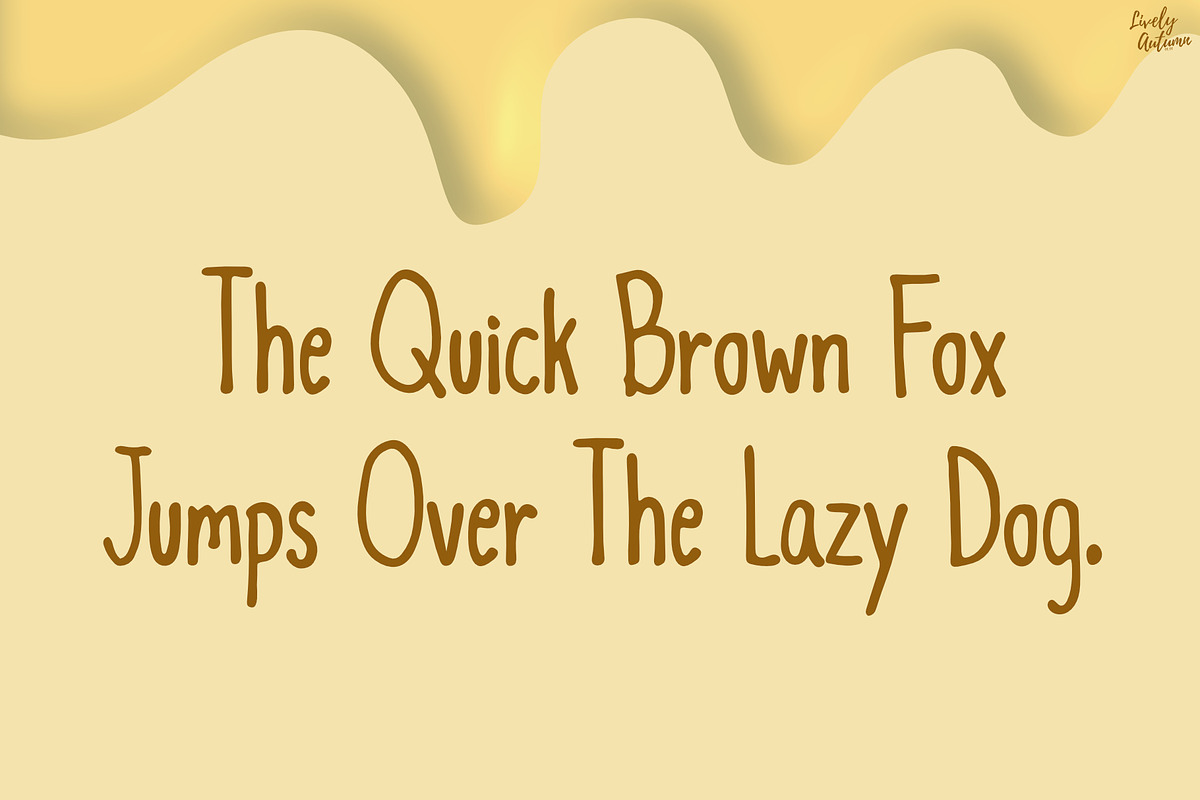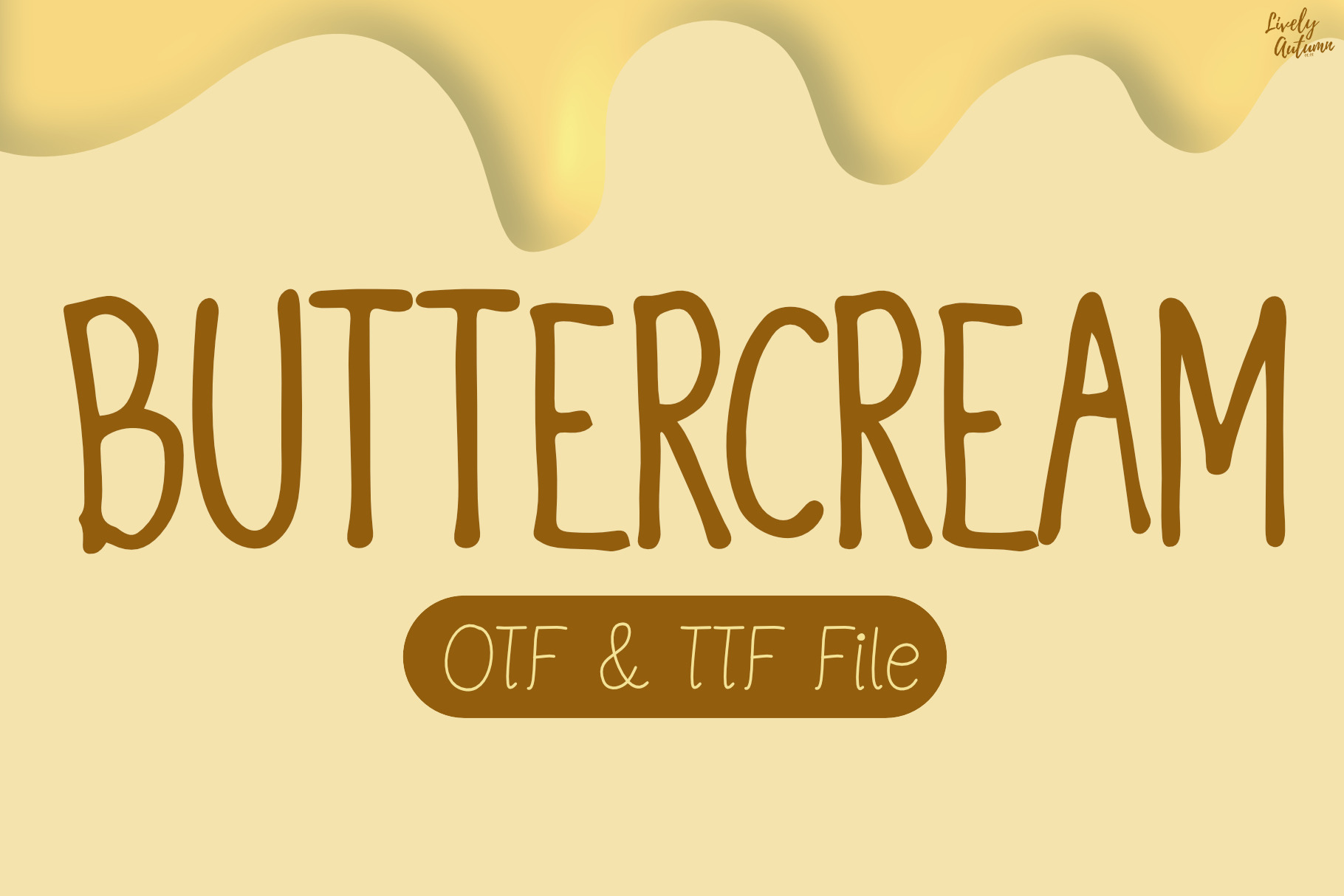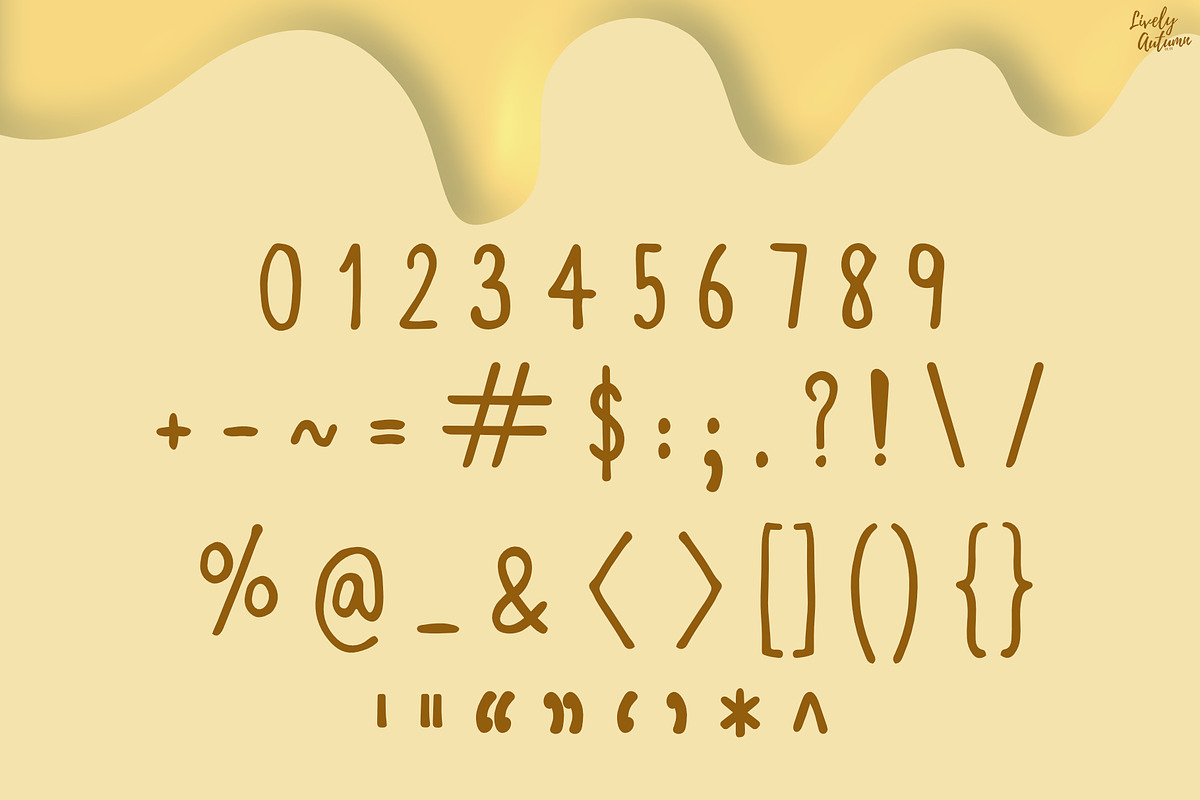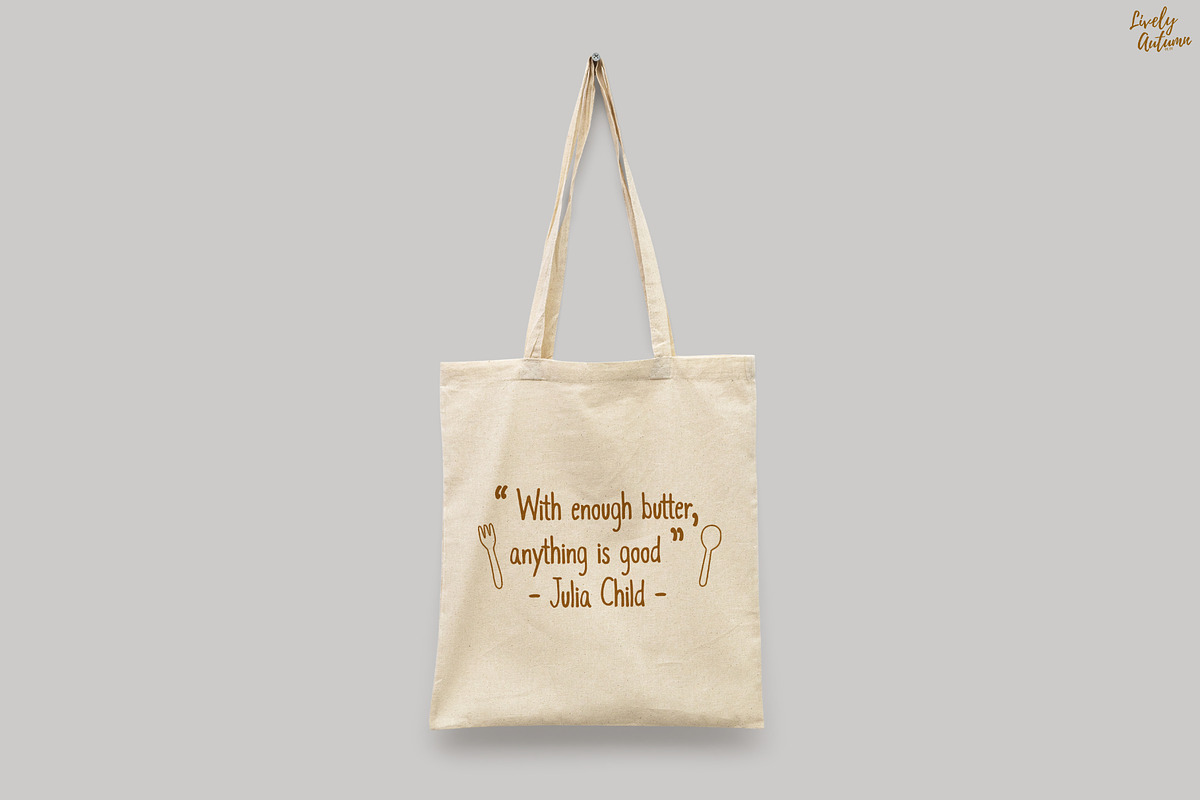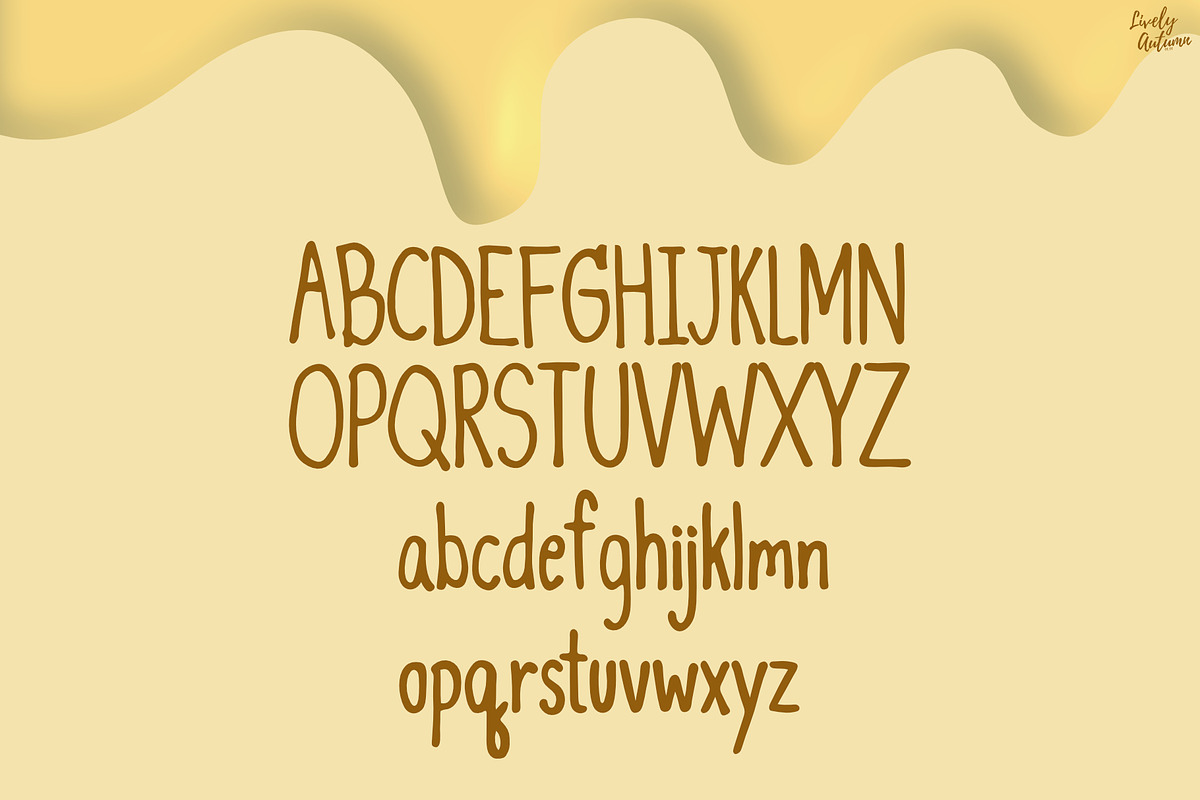
Buttercream | Handwritten Font
Buttercream Font is a marker brush handwritten font. Perfect for your personal projects and various projects. From invitations to posters, social media graphics, journals, and much more.
- Font includes: uppercase, lowercase, numbers, and punctuation